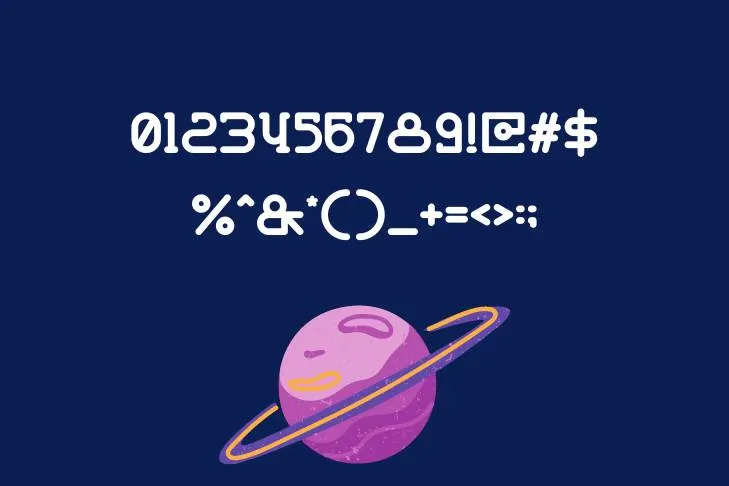
Cartos Font is a futuristic typeface that is a combination of traditional calligraphy and modern design. It is designed by an independent graphic designer and typographer Ryan Welch who resides in New York City. His compassion for type design inspired him to produce a wide variety of distinctive and exquisitely constructed fonts.
The contemporary elegance of Cartos font has made it stand out in the competitive field of type design. The font is distinguished by its strong and simple lines that somehow emit a vibe of grace and elegance.
Since its initial release in 2016, the font has grown in popularity among designers associated with print or digital media. It has been developed into a standard typeface for designers because of its everlasting impression and versatile aesthetics.
A wide range of patterns can employ this versatile typeface. Its bold and contemporary appearance makes it perfect for everything from newspaper layouts and food packaging to marketing and web design projects. It also makes a good pair with granjon font.
Furthermore, it is ideal for tasks and patterns that require an aspect of sophistication while still keeping a level of formality and traditional appeal due to its sleek lines and smooth curves, which display an innovative impression. Its bold letter structure makes it a foremost choice for headings while its legibility is suitable for body content and smaller text purposes.
Additional Features of Cartos Font
This flawlessly created typography delivers the ideal blend of modernity and classic style. It beholds sharp and bold lines and is available in both upper and lowercase letters. The symmetrical curves used in the character design create an appealing look while maintaining readability.
This incredible typeface consists of a distinct set of glyphs including alternative characters, ligatures, and numerals that give the design a unique and creative touch. This awesome typeface is available in three weights: Regular, Medium, and Bold, which enable its usage in various sizes which further improves the versatility of this typeface.
Name | Cartos Font |
Designer | Tokokoo Studio |
Style | Fancy |
Uppercase and Lowercase Letters of Cartos Font
Numerals and Symbols
Who is the creator of the Cartos font?
It is designed by an independent graphic designer and typographer Ryan Welch who resides in New York City. His compassion for type design inspired him to produce a wide variety of distinctive and exquisitely constructed fonts.
A wide range of patterns can employ this versatile typeface. Its bold and contemporary appearance makes it perfect for everything from newspaper layouts and food packaging to marketing and web design projects.